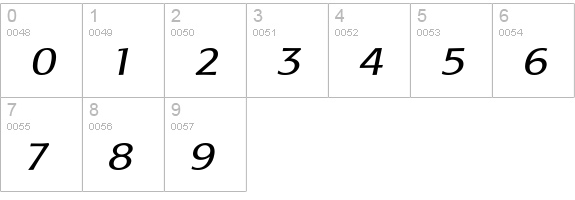
Baar Metanoia Italic is a distinctive, italic variant in the Baar typeface family \xE2\x80\x94 well suited to design and typography projects.
Baar Metanoia Italic is a breathtaking font that exudes elegance and sophistication. With its sleek and graceful letterforms, this font is perfect for any design project that requires a touch of class. The italicized nature of Baar Metanoia adds a sense of movement and dynamism to your typography, making it visually captivating. This font boasts a unique combination of modern and traditional elements, resulting in a design that is both timeless and contemporary. Its slender and elongated letterforms create a sense of balance and harmony, while the subtle curves and delicate serifs add a touch of refinement. Baar Metanoia Italic is not only visually stunning, but it also offers excellent legibility, ensuring that your message is conveyed with clarity and precision. Whether you are designing a logo, a branding project, or a magazine layout, this font will effortlessly elevate your design to new heights. One of the best things about Baar Metanoia Italic is that it is available for free. Yes, you heard it right – this font can be downloaded at no cost from FontsMarket.com. This means that you can enjoy the beauty and sophistication of Baar Metanoia Italic without any financial constraints. So why wait? Go ahead and download this exquisite font today and let your creativity shine.